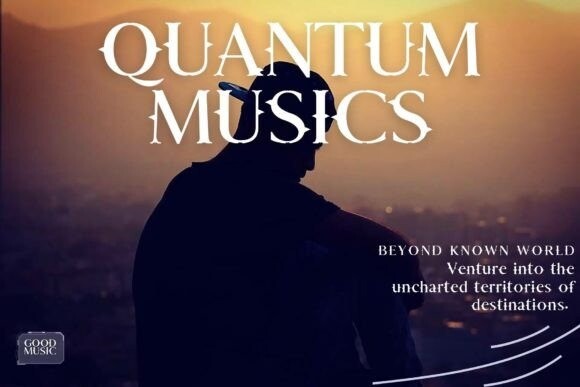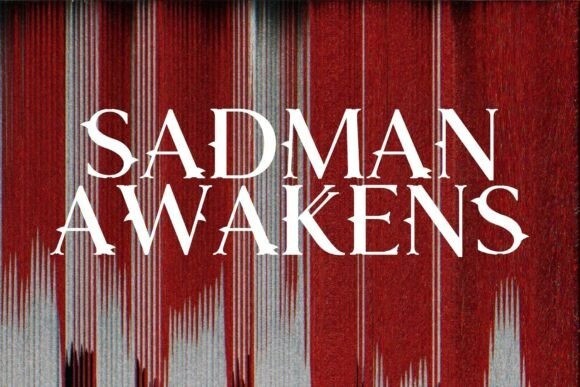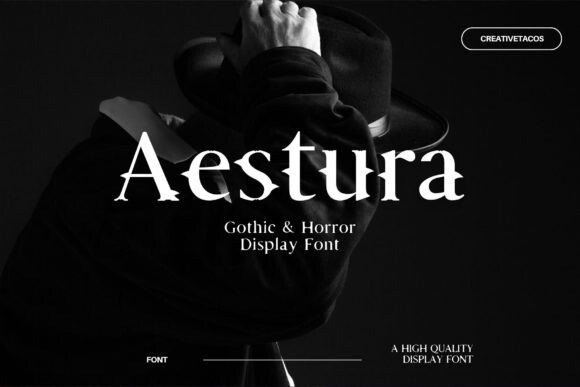
Aestura Font is a Gothic and horror font that gives designs a bold and spooky look. Its sharp and thick letters make it perfect for things like horror movie posters, book covers, or Halloween projects. The font’s strong, dark style grabs attention and adds a mysterious vibe to your work.
It includes uppercase and lowercase letters, numbers, punctuation, and special characters for different languages, making it versatile for many design uses. Whether you’re creating something inspired by Gothic style, fantasy, or a dramatic theme, Aestura brings a bold, eerie feel to your design.